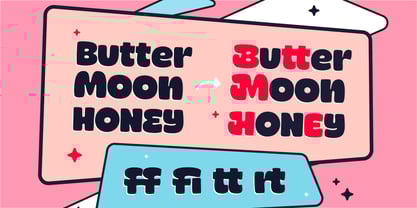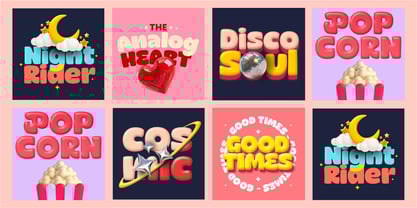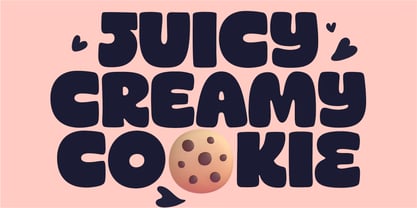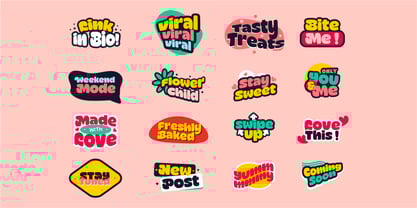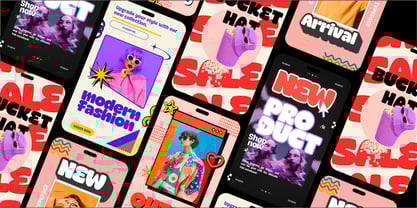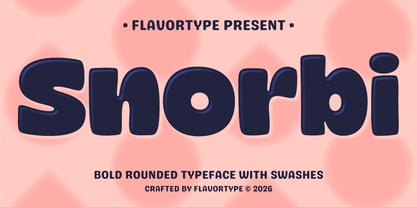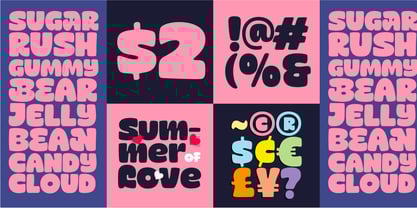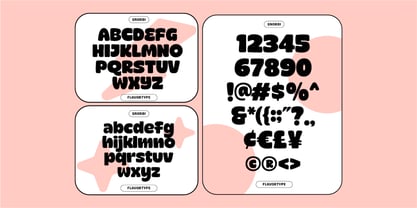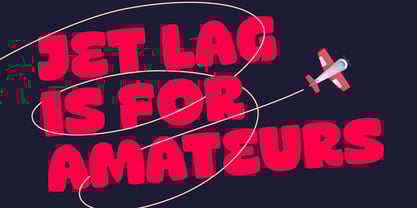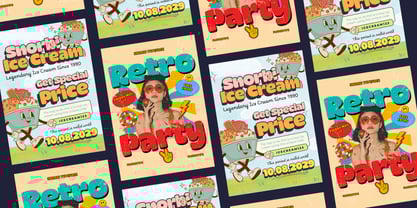
Snorbi
von Flavortype
Die Schriftfamilie Snorbi wurde von Adam Fathoni Haris, panji nugroho, Rizky Setyaludin entworfen und von Flavortype veröffentlicht. Snorbi enthält 2 Stile und Familienpaketoptionen.
Snorbi is a bold rounded display font with a juicy, bubbly personality, perfect for designers who want their lettering to feel soft, sweet, and instantly eye‑catching. Its thick curves, playful swashes, and smooth outlines make it ideal for fun, food‑themed, and kid‑friendly projects that need a friendly punch of character. Meet Snorbi, a chunky bubble typeface inspired by candy shops, ice cream carts, and retro snack packaging. With extra‑rounded shapes and soft terminals, every letter feels like it’s been inflated with air, giving your titles a delicious, huggable look. Snorbi was built as a display workhorse for big, loud messages—perfect for posters, social media, thumbnails, merch, and playful branding. The font includes uppercase and lowercase letters, numbers, punctuation, and fun alternates with swashy forms so you can mix and match styles in your layouts. Use it to design snack and dessert brands, kids’ products, event flyers, K‑pop or streetwear graphics, sticker packs, and YouTube or podcast covers that need maximum charm. Thanks to its bold weight and clean curves, Snorbi stays readable even at smaller headline sizes while still feeling soft and friendly.
Designer: Adam Fathoni Haris, panji nugroho, Rizky Setyaludin
Herausgeber: Flavortype
Foundry: Flavortype
Eigentümer des Designs: Flavortype